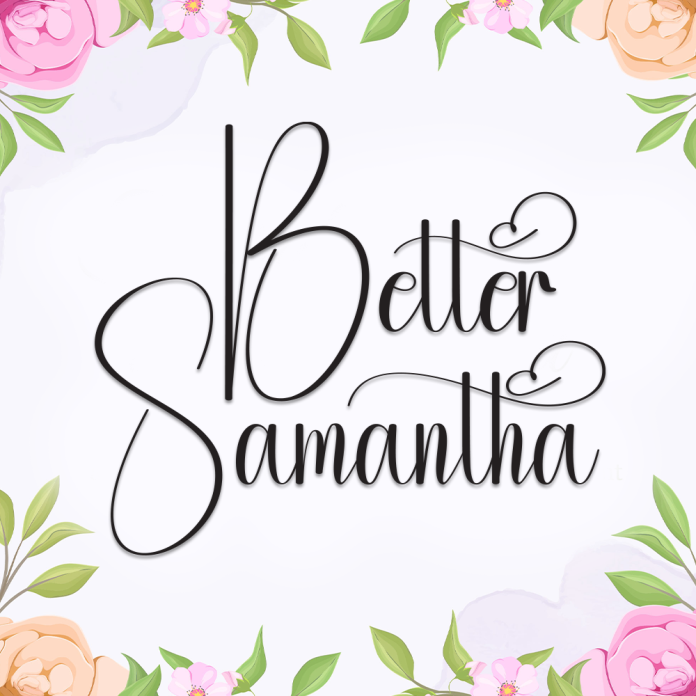
Better Samantha is a graceful and stylish handwriting font with a smooth flow and charming character. Designed to emulate natural penmanship, it brings a personal, heartfelt touch to any design.
Perfect for wedding invitations, feminine logos, personal branding, greeting cards, and anything that needs a touch of elegance and warmth.
Beautiful cursive script with fluid strokes
Ideal for romantic or elegant themes
Add a delicate, handwritten flair to your creations with the refined elegance of Better Samantha!